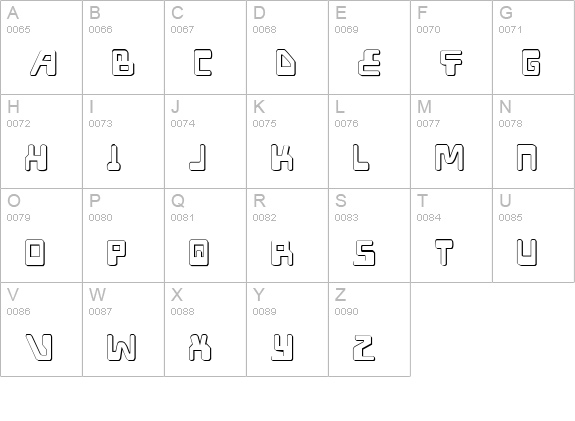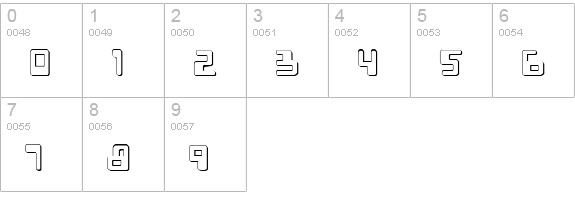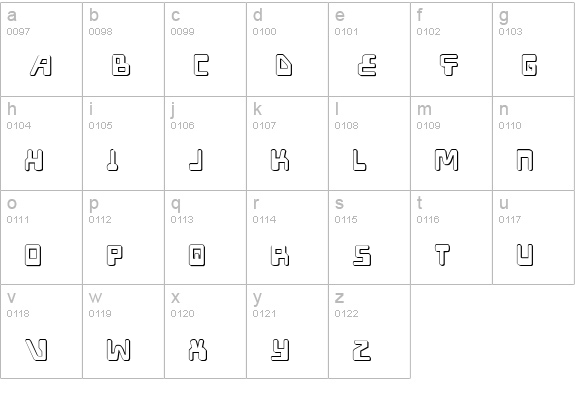
XPED Shadow Font Details
The XPED Shadow font is a modern and stylish typeface that exudes a sense of mystery and sophistication. With its sleek lines and unique shadow effect, this font is perfect for adding a touch of elegance to any design project. Whether you're creating a logo, poster, or website, XPED Shadow will make your text stand out and leave a lasting impression. Best of all, XPED Shadow is available for free download at FontsMarket.com. This means you can easily access this stunning font and use it in your projects without any cost. Don't miss out on the opportunity to enhance your designs with the striking beauty of XPED Shadow font. Download it now and elevate your typography game to the next level.